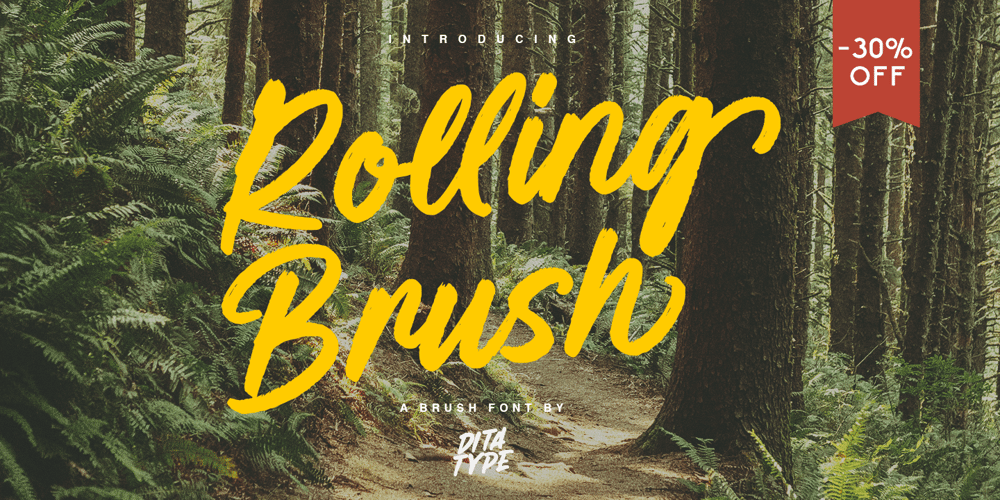
Rolling Brush
Rolling Brush font
Rolling Brush Font Family was designed by Donis Miftahudin and published by Ditatype. Rolling Brush contains 1 styles and family package options. Rolling Brush is a script font that gives handwriting appearance with original and personal brush details. This font is made beautifully so that the letters are connected to each other, creating a continuous and flowing look. Each letter is attached to the previous letter and continues to the next letter, creating beauty in writing unity. This font shows brush details on each letter. Brush strokes displays a rough, organic texture to the edges of the letters, adding dimension and visual life. These details give a unique impression to this script font. On the other hand, even though it has a rough border, this script still maintains a natural and elegant aesthetic touch. Some letters may have dramatic twists, while others are simpler. This flexible shape creates an expressive and creative look to the lettering. Because it is designed with a rough border, it would be better if you use this font at a large text size so it is more easy to read. Enjoy the various features available in this font as well.Features: Alternates Ligatures Multilingual Supports PUA Encoded Numerals and Punctuations Rolling Brush is suitable for any designs that want to convey a warm, personal and alluring impression. You can use this font in the design of greeting cards, invitations, logos, labels, and many other design projects that want to create uniqueness through a natural, handwritten touch. Find out more ways to use this font by taking a look at the font preview.Thanks for purchasing our fonts. Hopefully, you have a great time using our font. Feel free to contact us anytime for further information or when you have trouble with the font. Thanks a lot and happy designing.